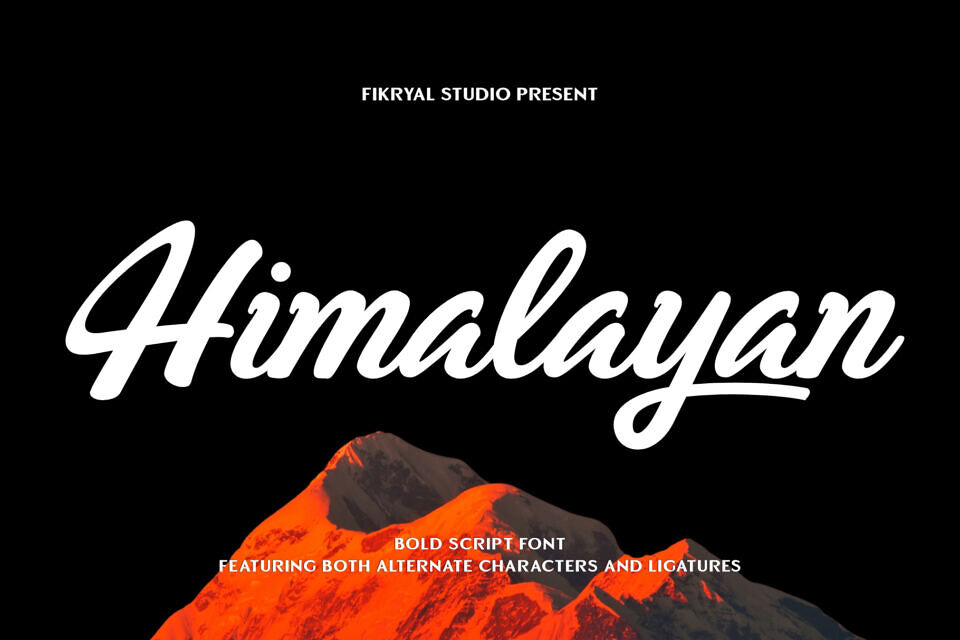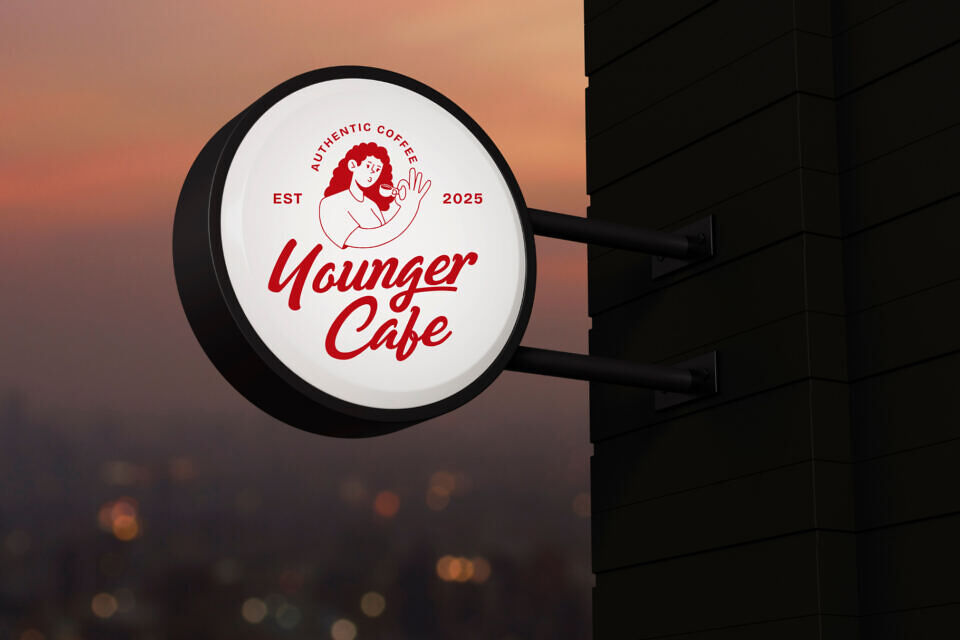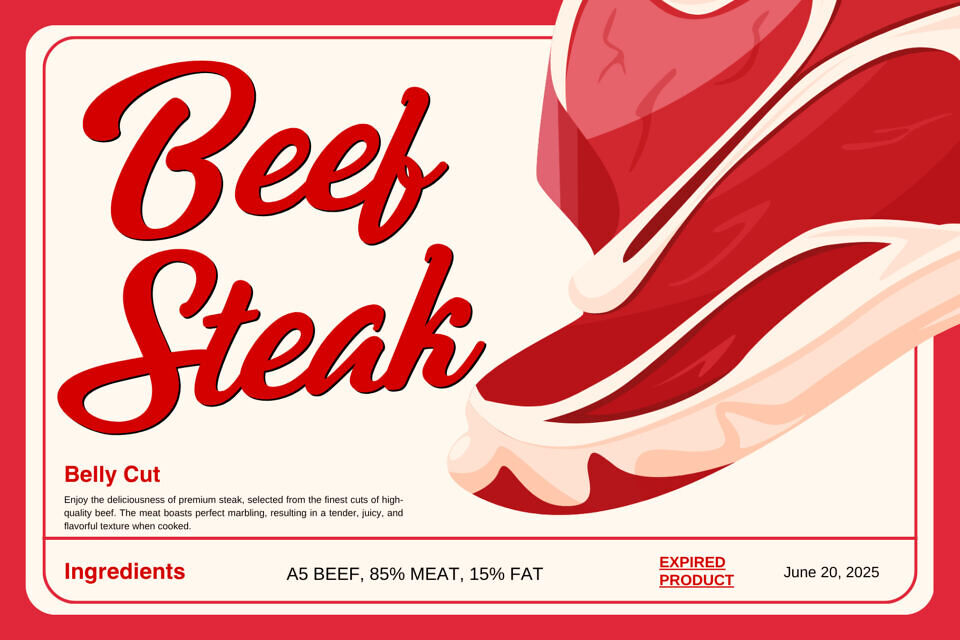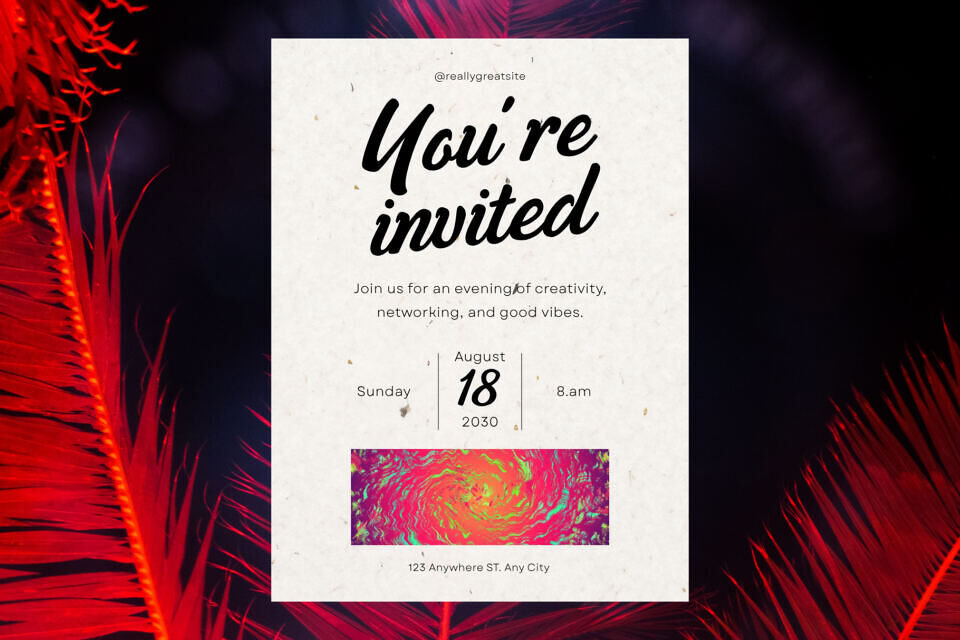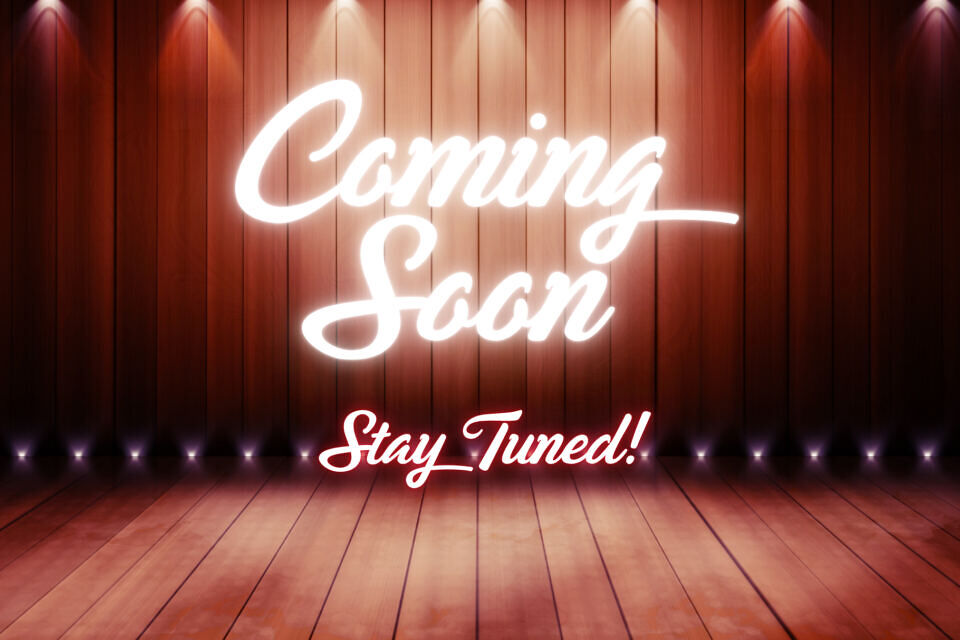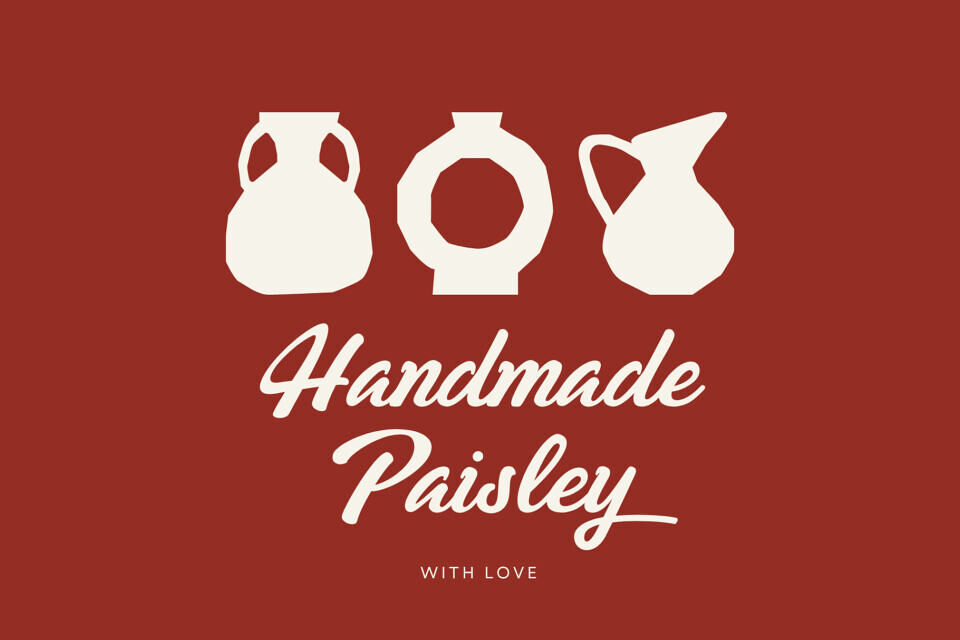
Himalayan Font
Introducing Himalayan, a bold and expressive script font designed to elevate your creative projects. With its strong strokes and elegant flow, Himalayan brings a modern handwritten feel that stands out in any design.
This font comes with beautiful ligatures and alternates, allowing you to create unique and customized typography effortlessly. Whether you’re working on branding, packaging, or social media visuals, Himalayan delivers a bold and stylish impression.